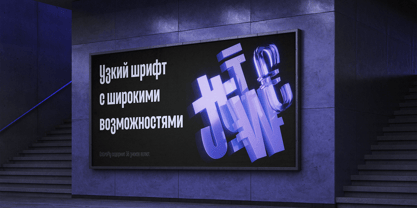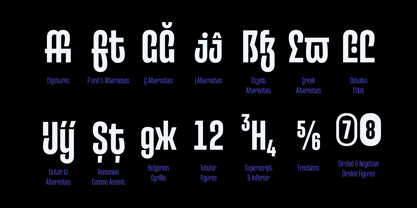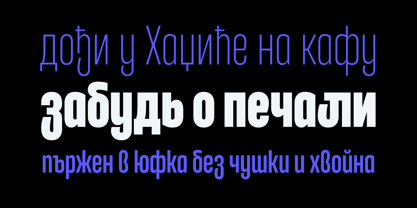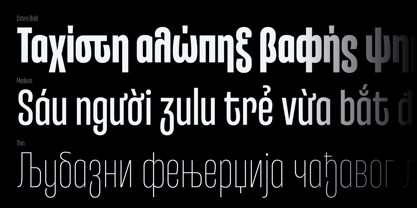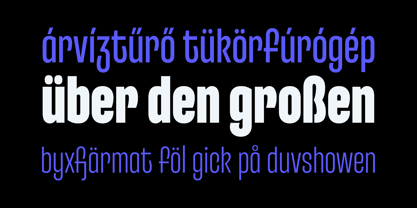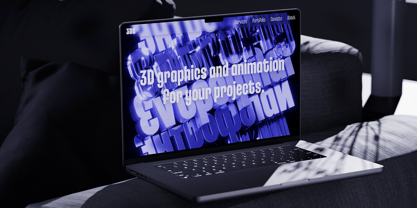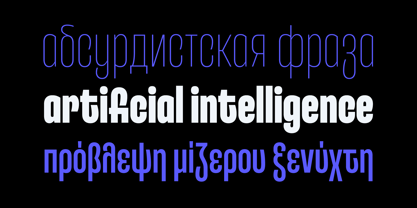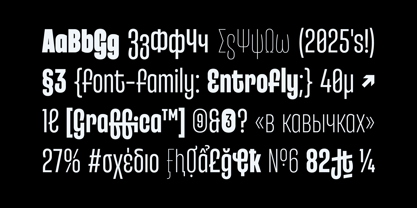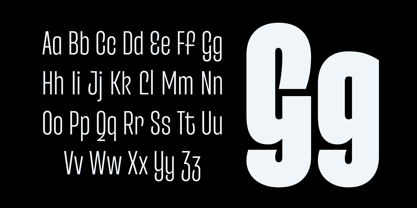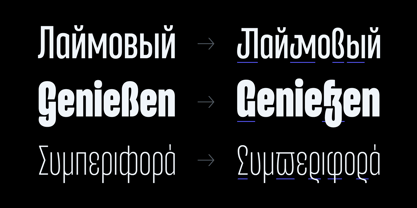
Entrofly
by Slava Antipov
Entrofly is a condensed grotesque that combines efficient geometric construction with subtle handwritten details and a more fluid, friendly character. Built upon the ideas explored in Entropia, the family rethinks condensed typography by introducing softer forms and unexpected details into an otherwise structured sans serif.
The result is a typeface that balances narrow proportions, geometric precision, plastic forms, and human character. Small details throughout the letterforms create a distinctive rhythm without compromising the efficiency and clarity of the overall construction.
Entrofly is especially suited to branding, logos, visual identities, packaging, product graphics, headlines, posters, editorial design, social media, websites, and other contemporary design applications that require condensed typography with a more expressive personality.
The family includes 10 weights and a Variable Font, with continuous control across the weight axis. Each style contains 1,261 glyphs and the family includes extensive features, including standard and discretionary ligatures, Romanian and Bulgarian localized forms, Bashkir, Chuvash, Catalan, Dutch, and Turkish localized forms, fractions, numerator and denominator figures, superscript and subscript figures, monospaced figures, ordinals, contextual alternates, case-sensitive forms, and 16 stylistic sets, including localized forms within seven of the sets.
Entrofly supports Latin, Cyrillic, Greek, and Vietnamese scripts with broad multilingual coverage.
Its combination of condensed geometry, soft plastic forms, handwritten details, extensive multilingual support, sophisticated functionality, and Variable Font technology makes Entrofly a distinctive alternative to more rigid geometric condensed sans serifs.